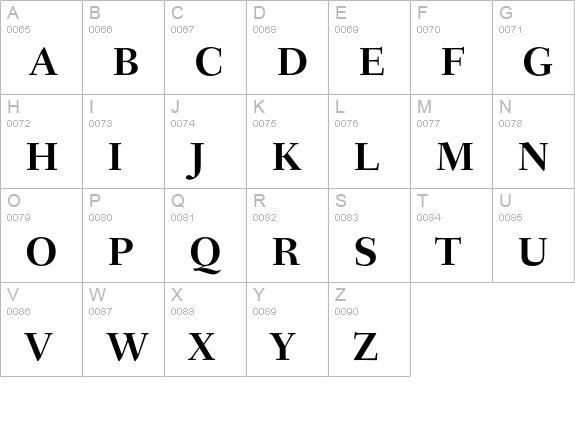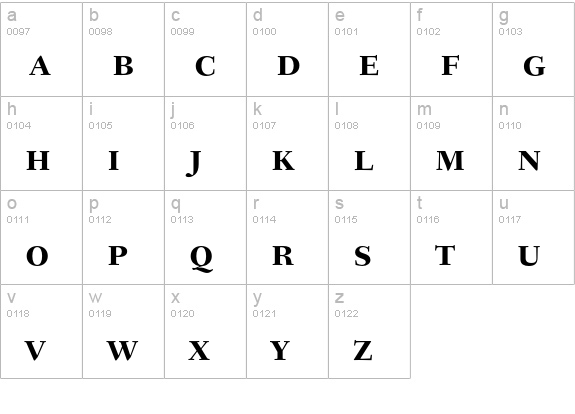
Fairfield LH 75 Bold Small Caps & Old Style Figures is a strong, high-contrast variant in the Fairfield typeface family \xE2\x80\x94 well suited to headlines, attention-grabbing titles, and strong calls-to-action.
Fairfield LH 75 Bold Small Caps & Old Style Figures font is a sophisticated and elegant typeface that exudes timeless charm and classic appeal. Its bold weight and small caps style make it perfect for adding a touch of sophistication to any design project. The old-style figures add a vintage flair, making this font a versatile choice for a wide range of applications. What's even better is that Fairfield LH 75 Bold Small Caps & Old Style Figures font is available for free download at FontsMarket.com. This means that you can easily enhance your designs with this beautiful font without having to worry about any additional costs. Whether you're working on a branding project, editorial design, or any other creative endeavor, Fairfield LH 75 Bold Small Caps & Old Style Figures font is sure to elevate your work with its classic elegance and timeless appeal. Download it for free today and see the difference it can make in your designs!